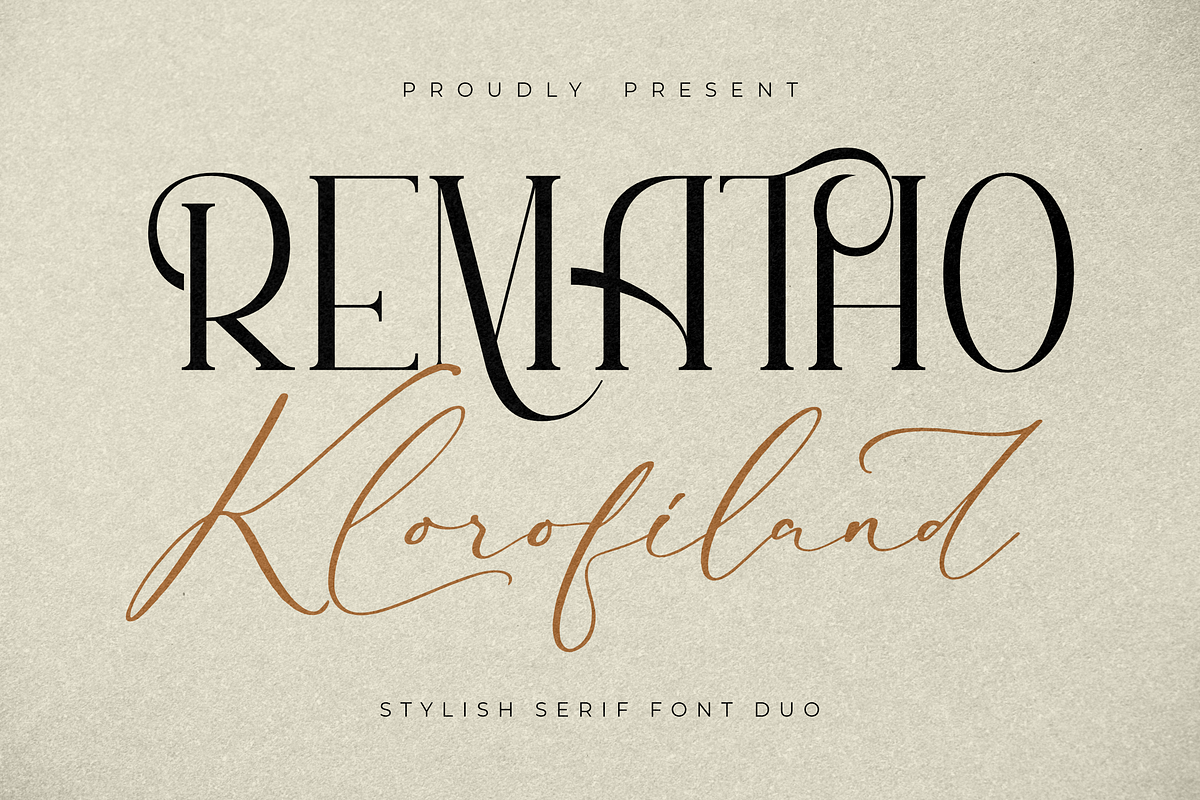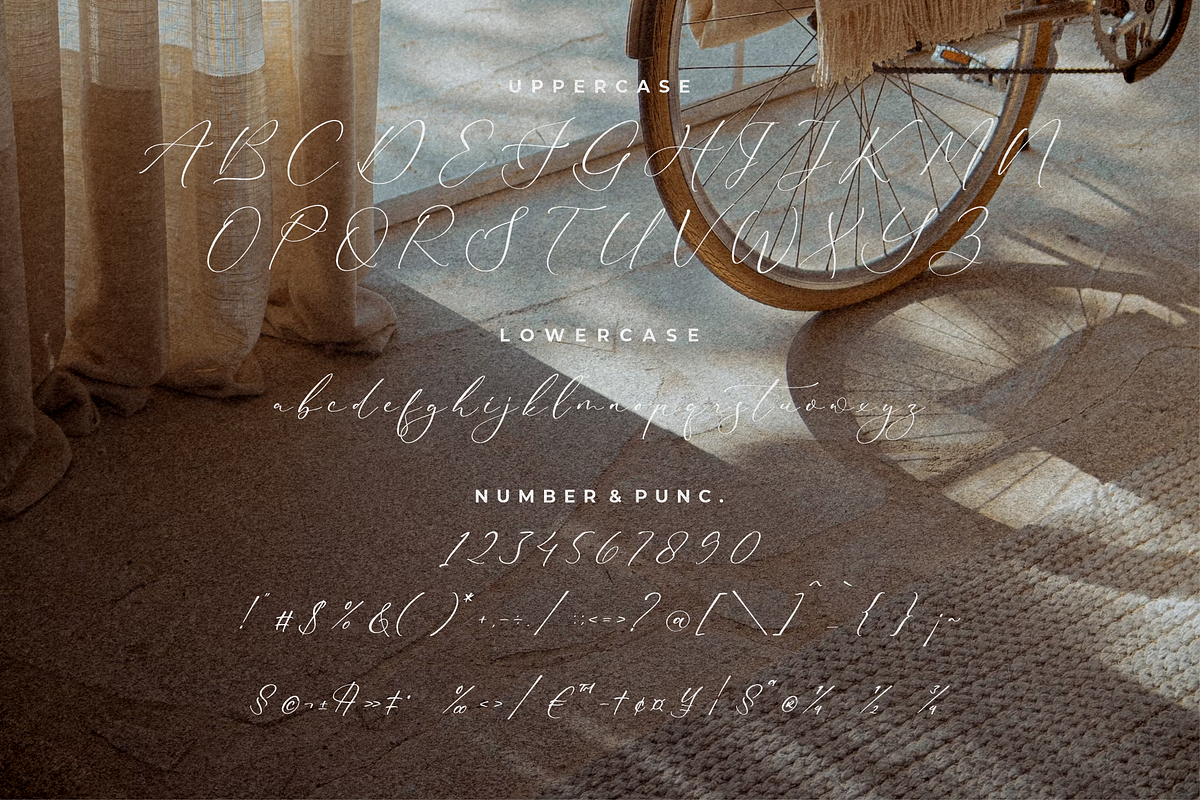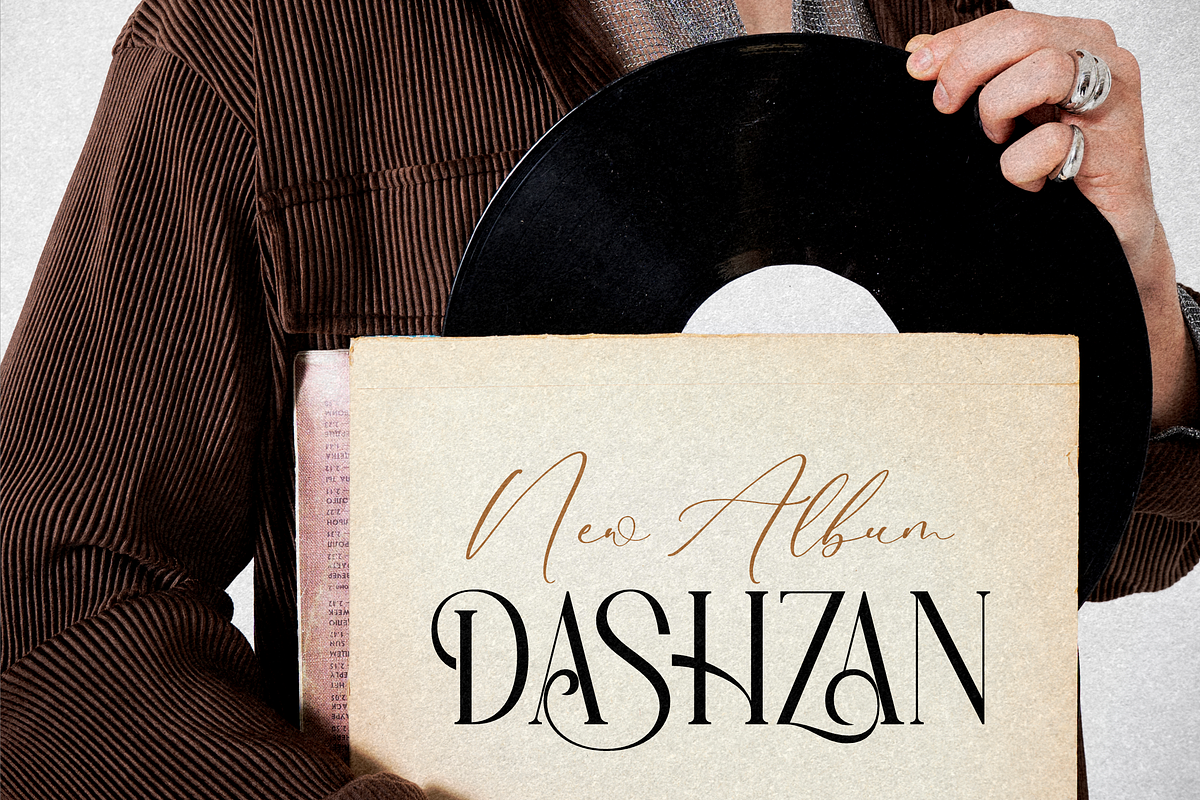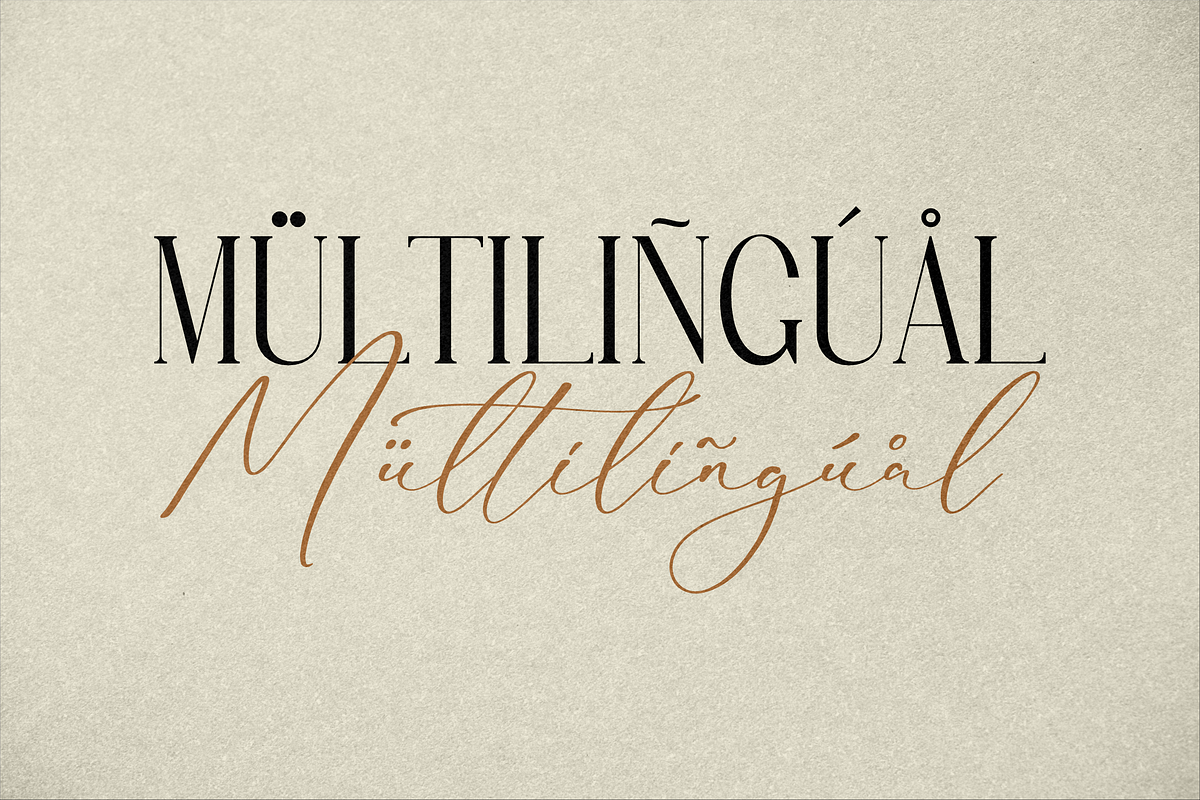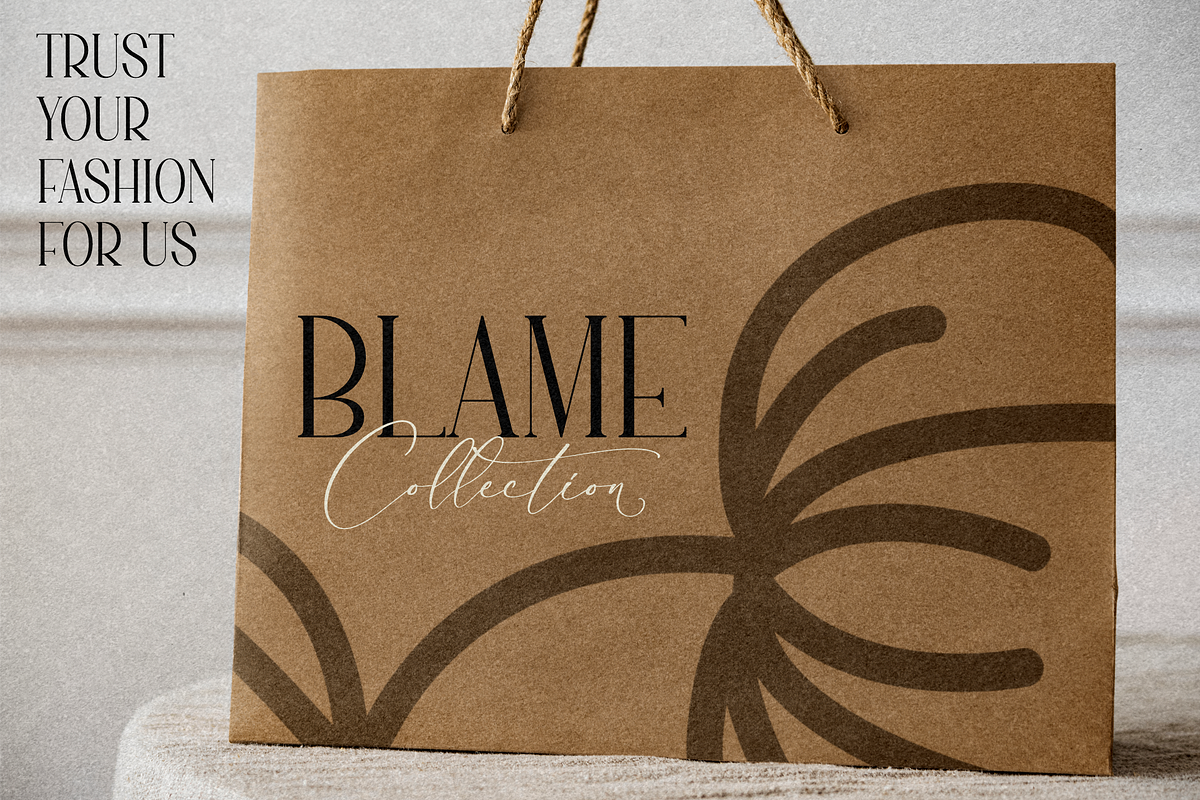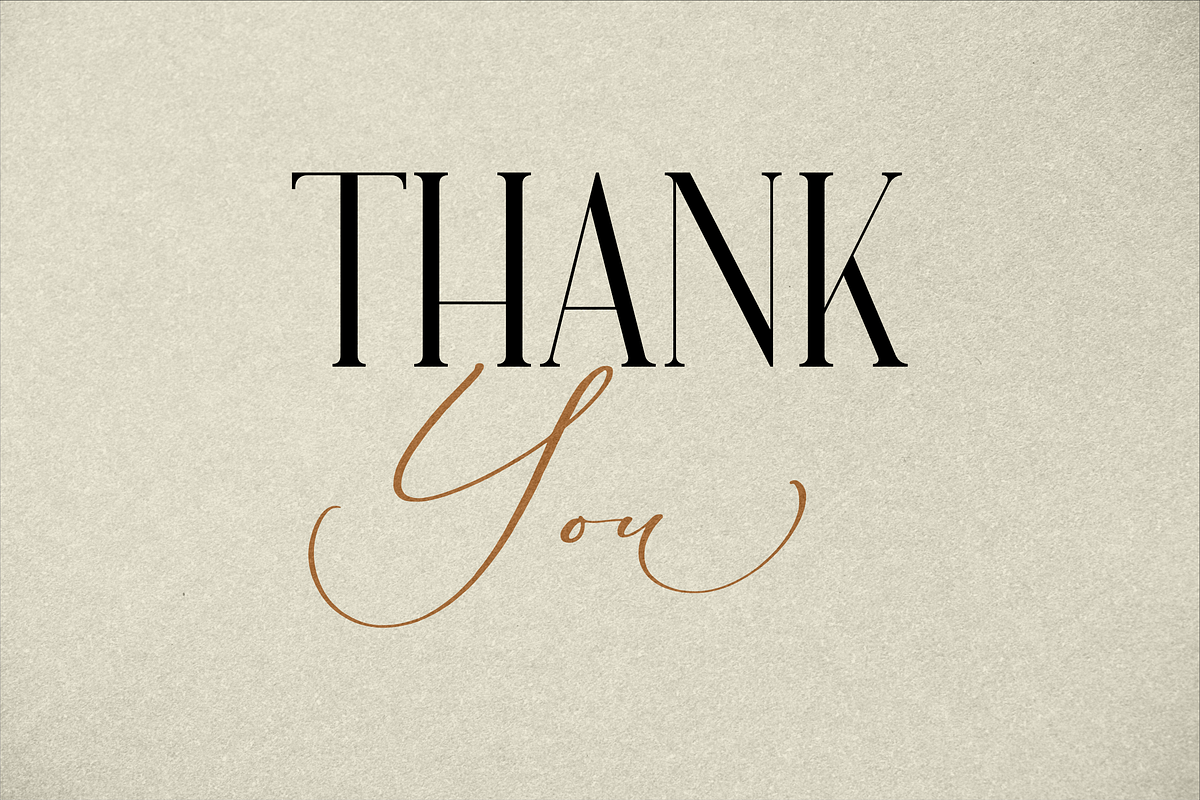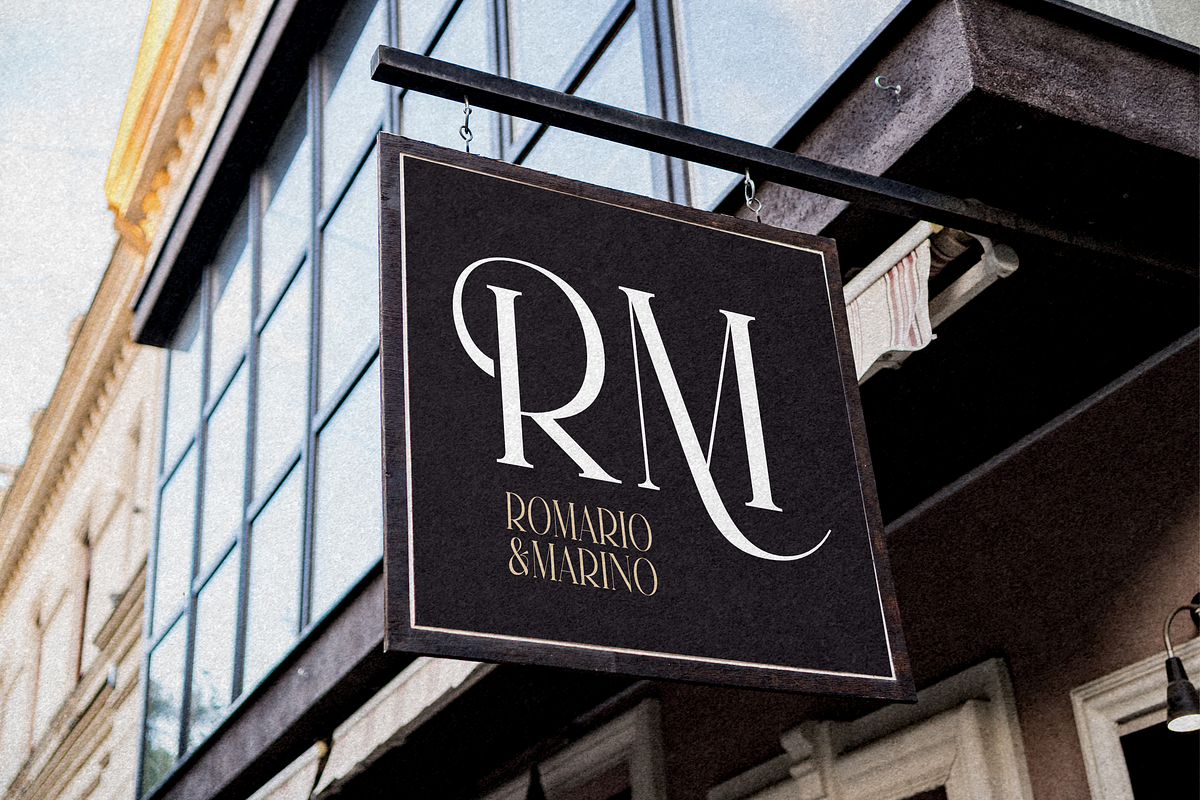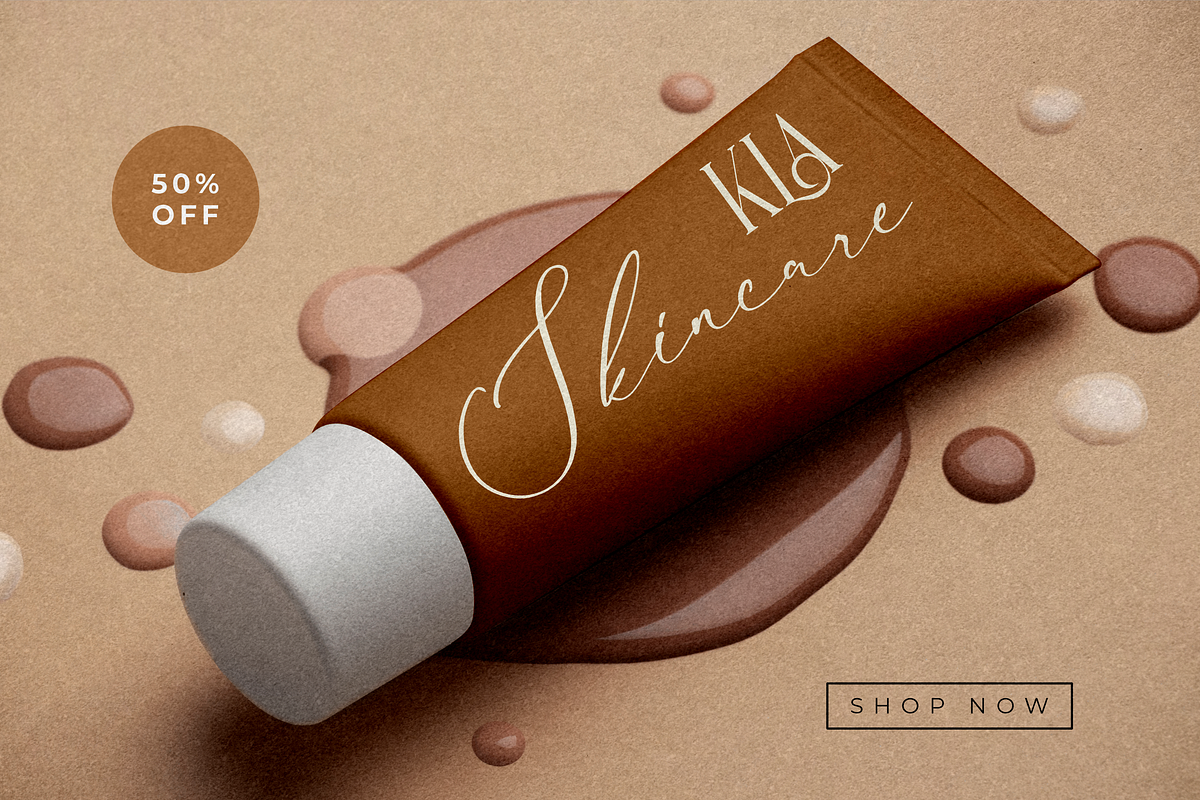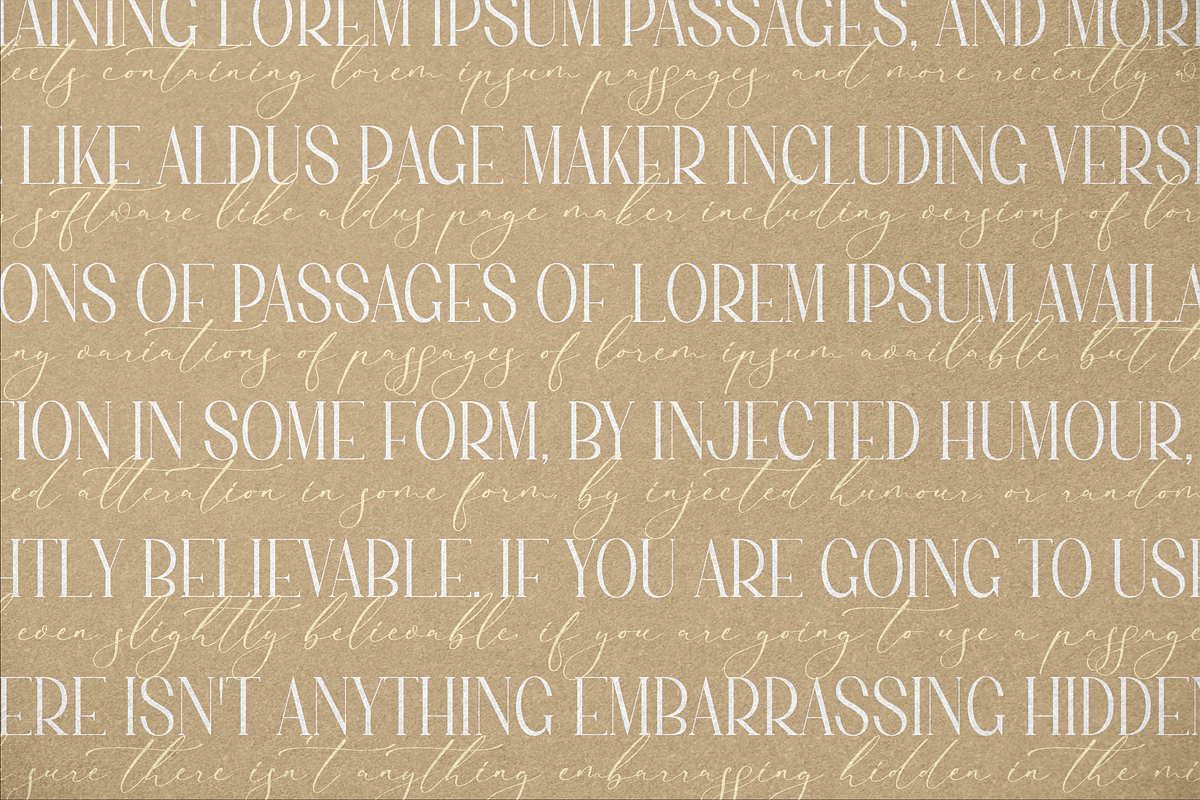
Rematho Klorofiland Duo Font
Proudly present Rematho Klorofiland Duo Font , created by Storytype, A serif and script typeface that has own unique style & modern look. This typeface is perfect for an elegant & luxury logo, book or movie title design, fashion brand, magazine, clothes, lettering, quotes, and so much more.